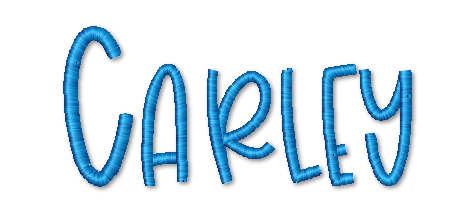
Carley
Carley is a hand-drawn style font with block upper case and connecting script lower case. This is the font we used in the Dog Bandanna designs and these designs are bundled with the font as "Font Designs"